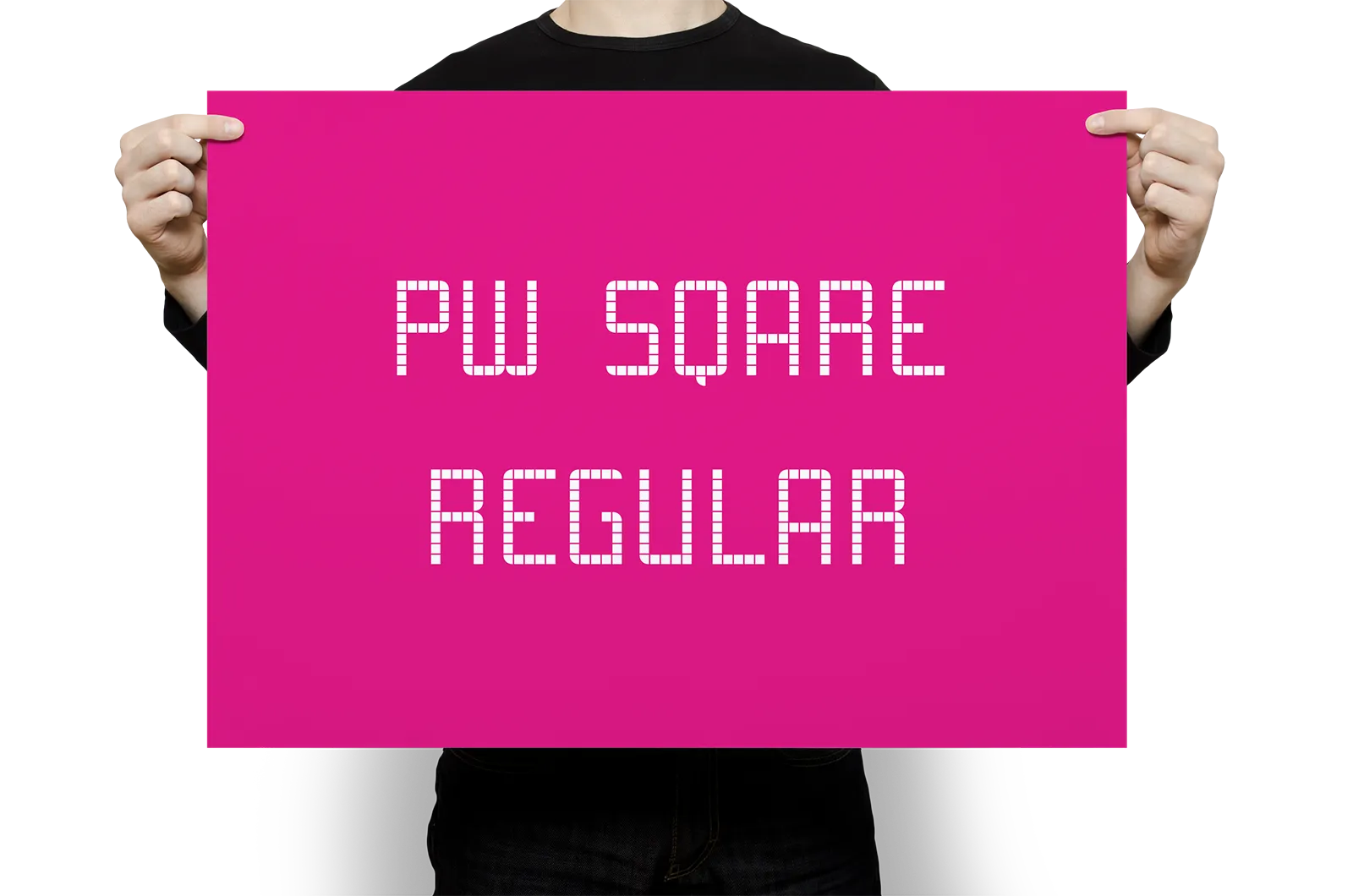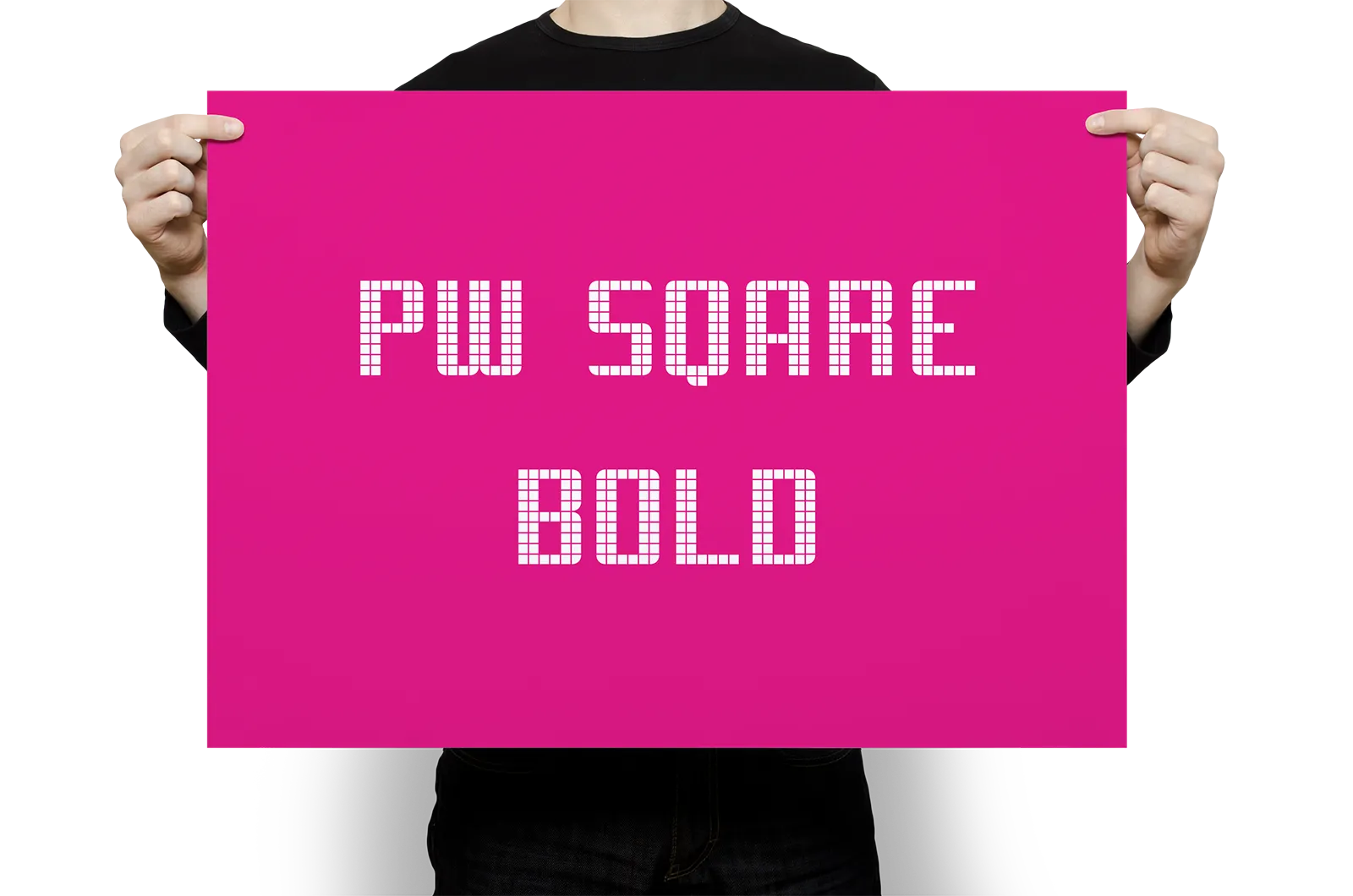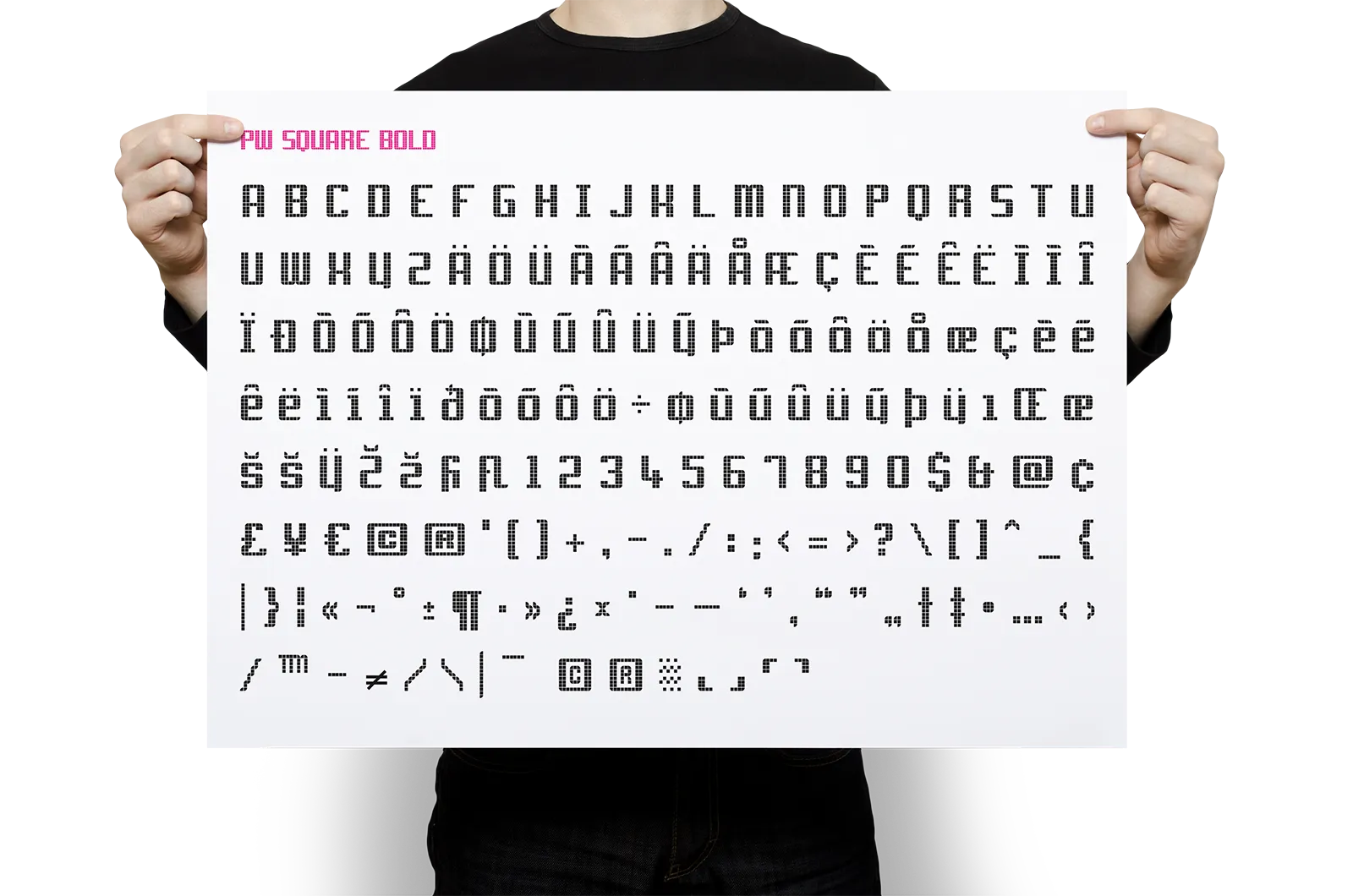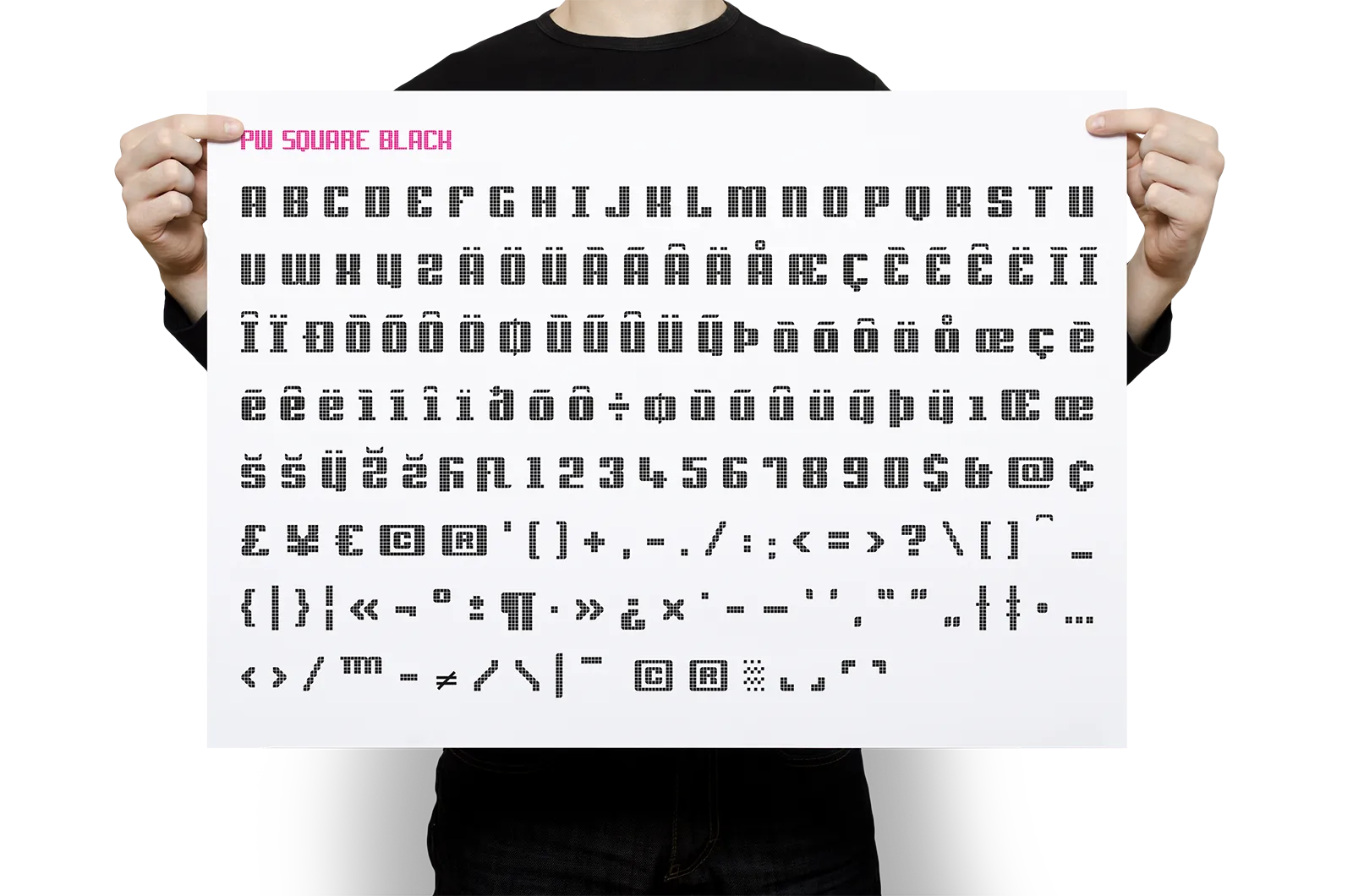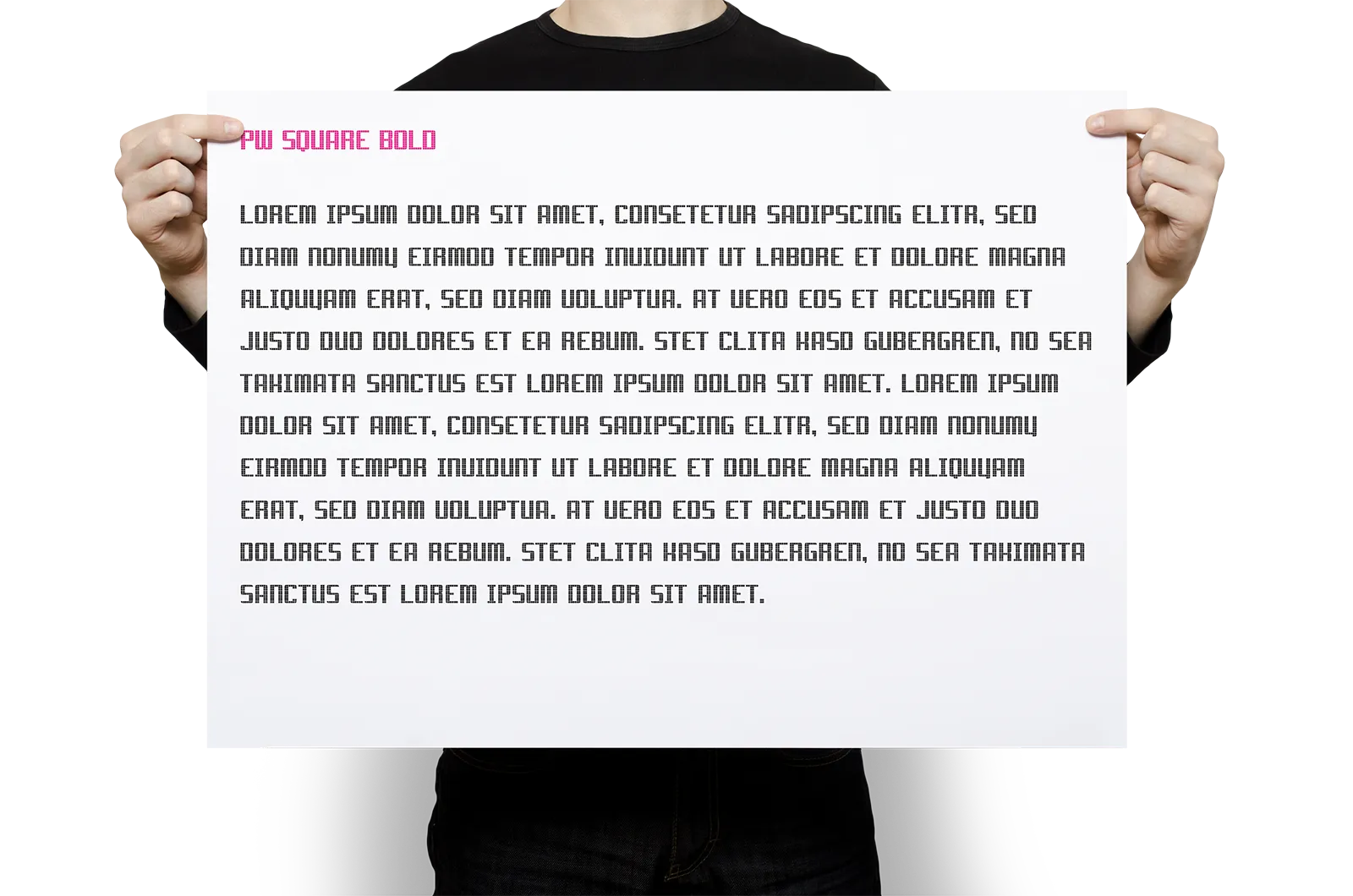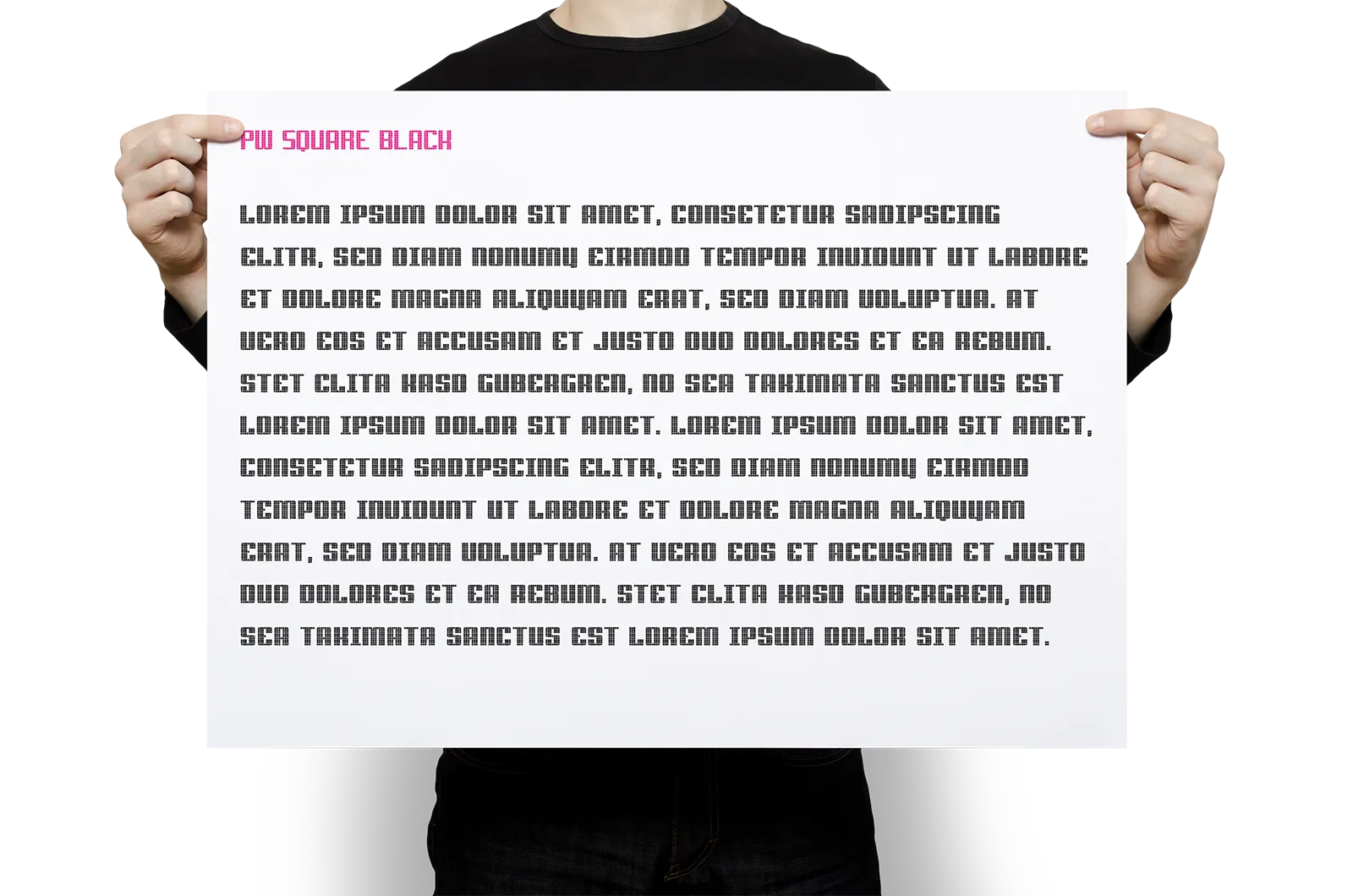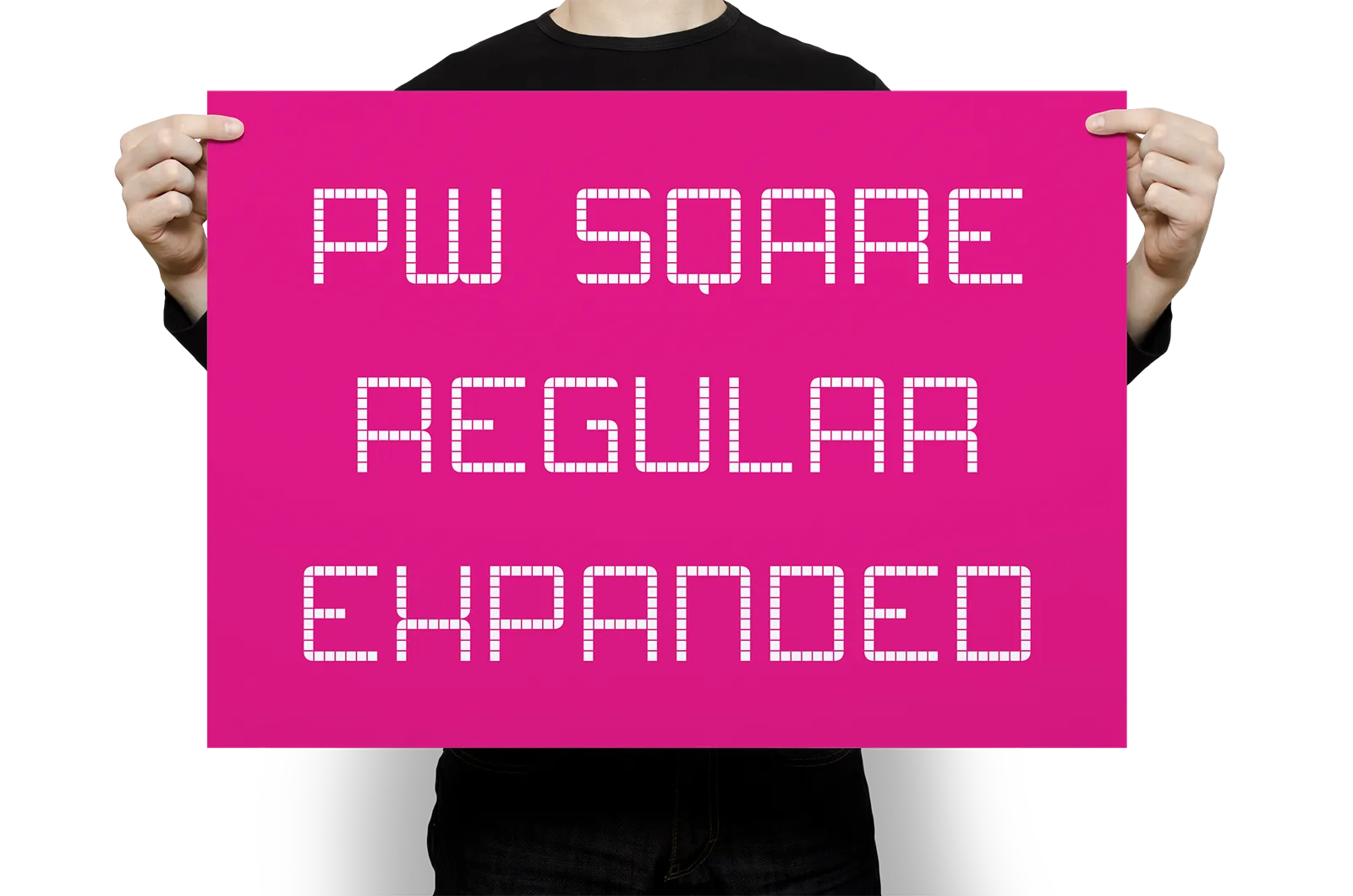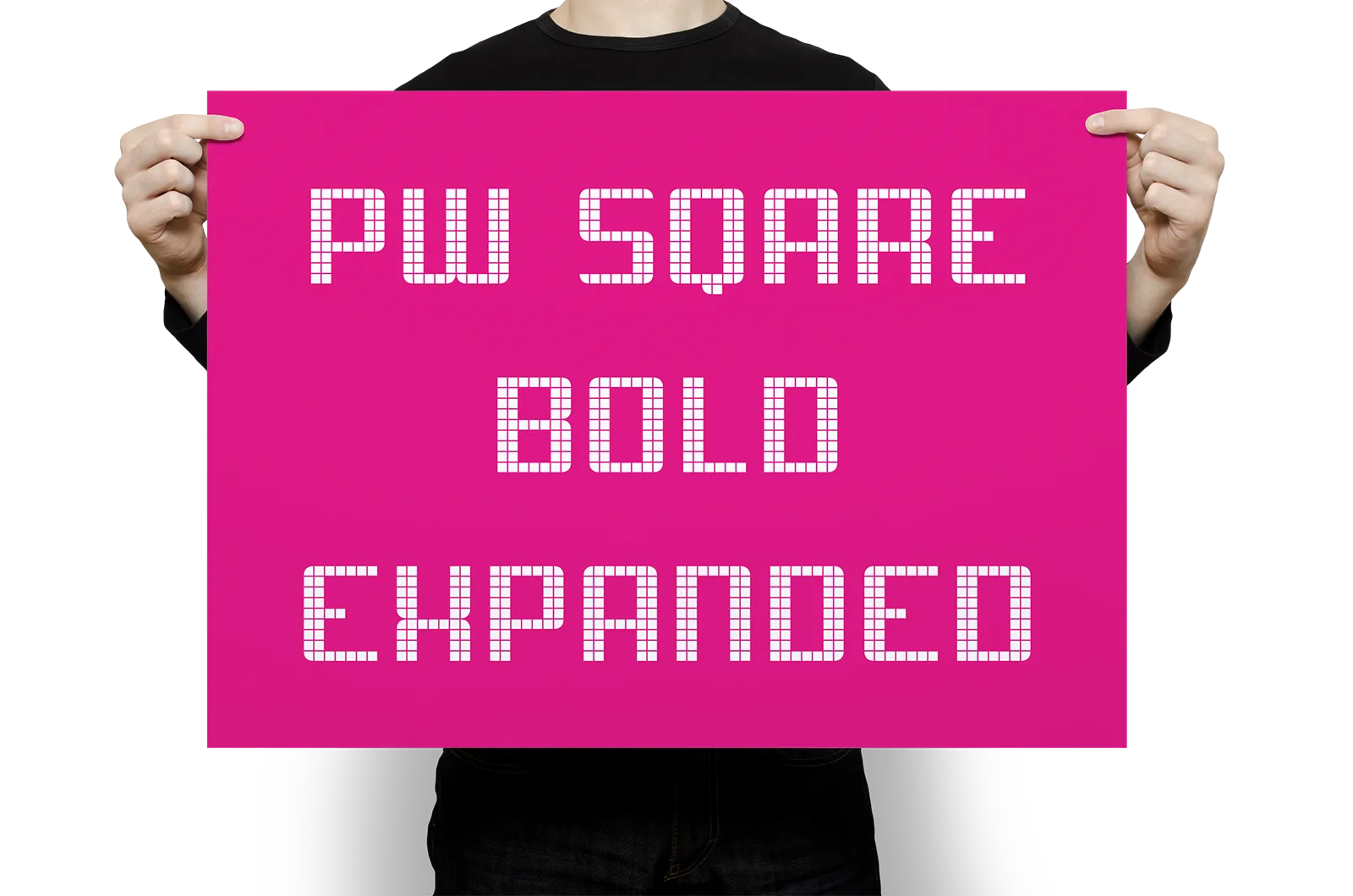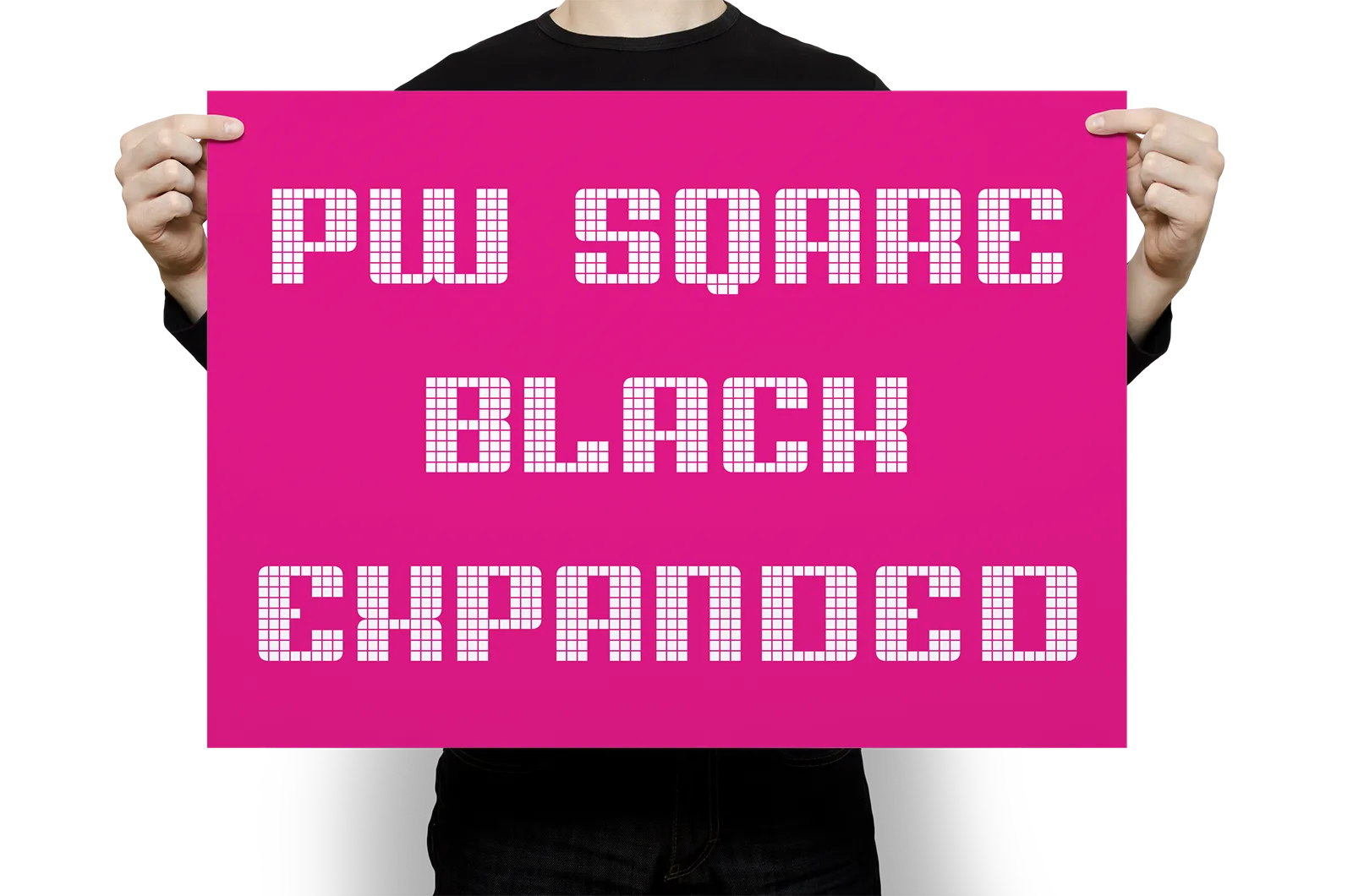
A project on the topic of typeface design in which a headline font based on rounded squares was created in various styles. This font was developed as part of a course at the University of Applied Sciences Potsdam.
Ein Projekt zum Thema Schriftgestaltung bei dem eine, auf abgerundeten Quadraten basierende, Headline-Schrift in verschiedenen Schnitten gestaltet wurde. Diese Schrift entstand im Rahmen eines Kurses an der Fachhochschule Potsdam.